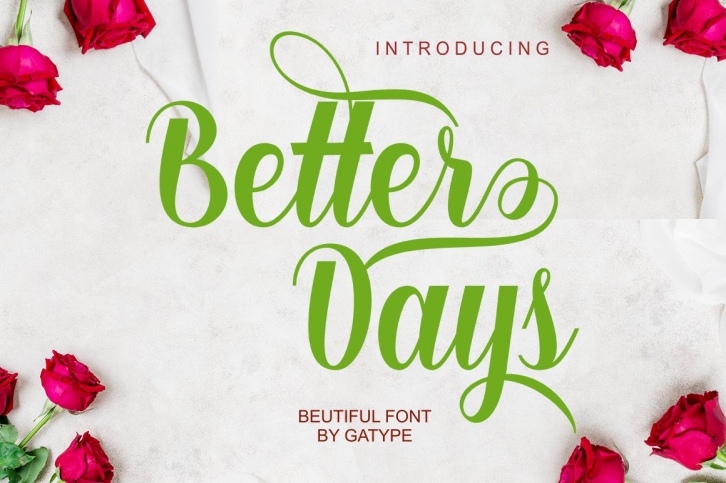
Better Days FONT Download
Better Days Script is modern script font, every single letters have been carefully crafted to make your text looks beautiful. With modern script style this font will perfect for many different project ex: quotes, blog header, poster, wedding, branding, logo, fashion, apparel, letter, invitation, stationery, etc.
Better Days Script including alternate glyph and beautiful swirl.